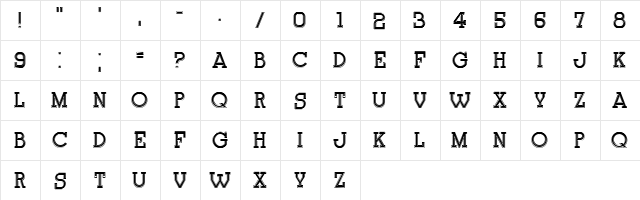
Onderneming Regular Font Preview
Onderneming Regular
Onderneming Regular Font Details
Design Context for Onderneming Typeface
Onderneming is a composed and adaptable typeface that performs quietly and consistently across a wide range of design contexts.